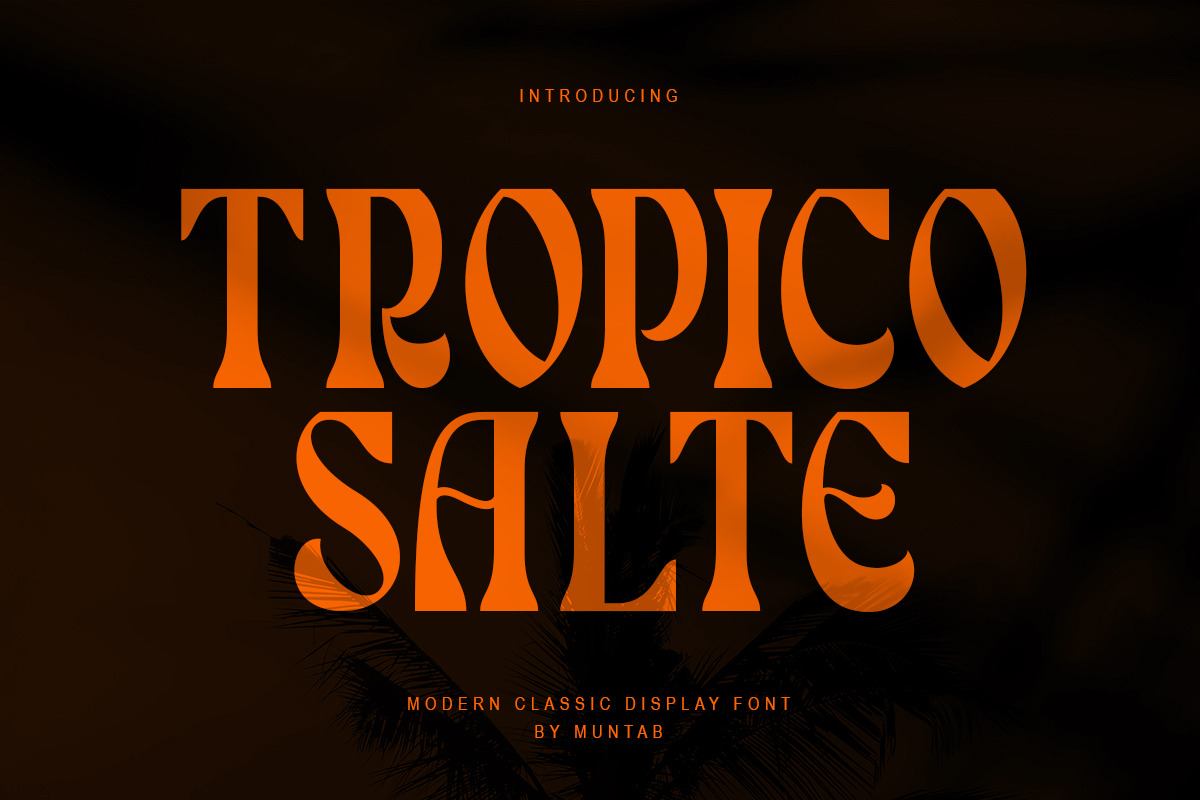
Tropico Salte | Serif Display Free Download
Tropico Salte | Serif Display Free Download is a bold, stylish display serif typeface that combines tropical flair with elegant sophistication. With its high contrast strokes, distinctive curves, and editorial-style serifs, Tropico Salte is perfect for branding, fashion campaigns, luxury packaging, magazine headlines, and stylish social media graphics.
This font captures a warm, exotic aesthetic while maintaining a clean and polished look, making it ideal for designs that need to feel both expressive and upscale. Whether you're building a resort brand or crafting a trendy lookbook, Tropico Salte brings character and refinement to every layout.